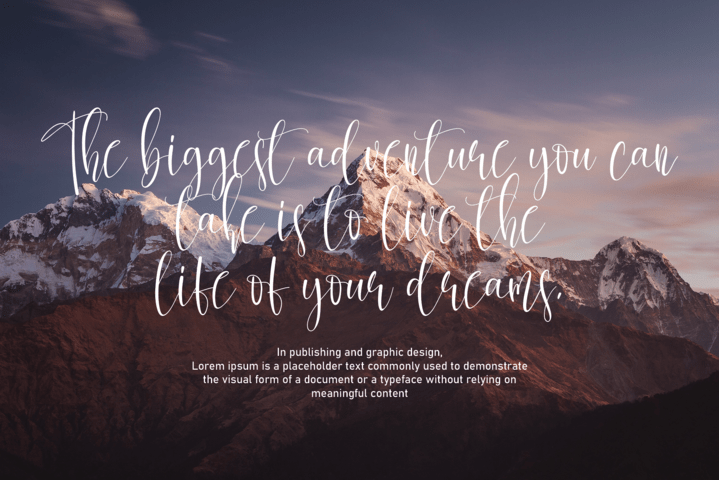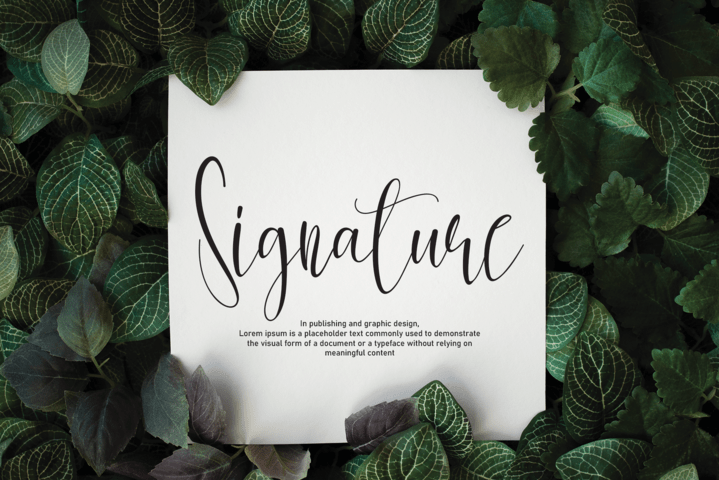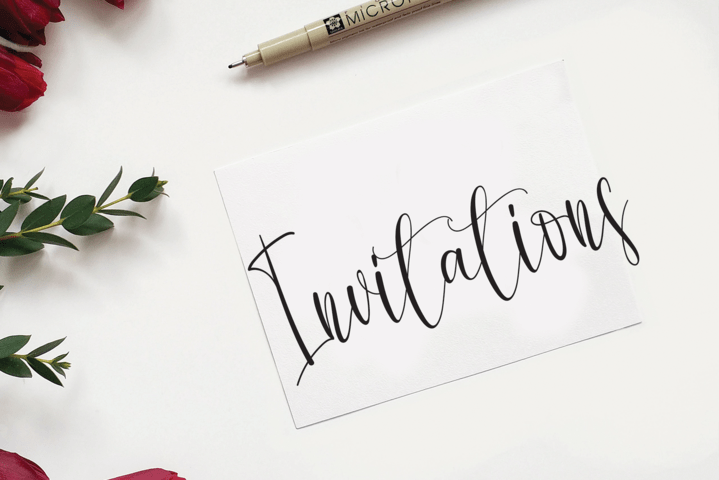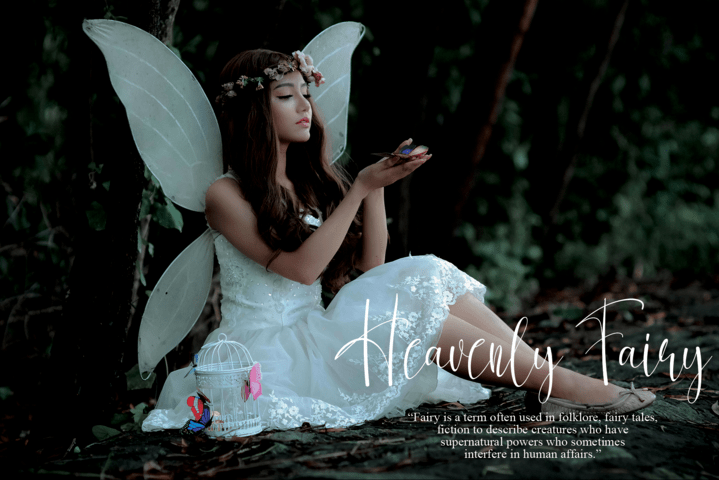
Christmas Family Script Font
It’s a creative script and a modern font. You can use this font for invitations, product packaging, quotes, product design, crafter, labels, photography, watermarks, logos & branding.